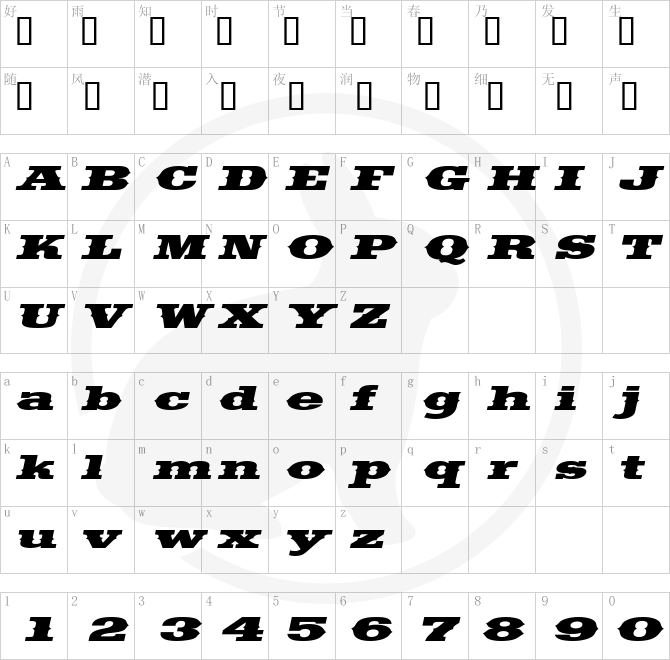
- Font Name:SaddlebagExtended
- Full Name:SaddlebagExtended Italic
SaddlebagExtended-Italic-1-.ttf is a very beautiful artistic font, SaddlebagExtended-Italic-1-.ttf is widely used in the design and printing of various books and pictures,SaddlebagExtended-Italic-1-.ttf has a strong visual impact,SaddlebagExtended-Italic-1-.ttf is a commonly used font in newspapers, magazines and books, and is used in posters, e-commerce Poster design, store design, logo design, font design and other fields.SaddlebagExtended-Italic-1-.